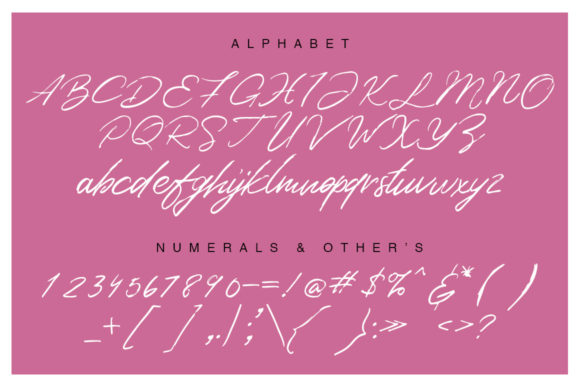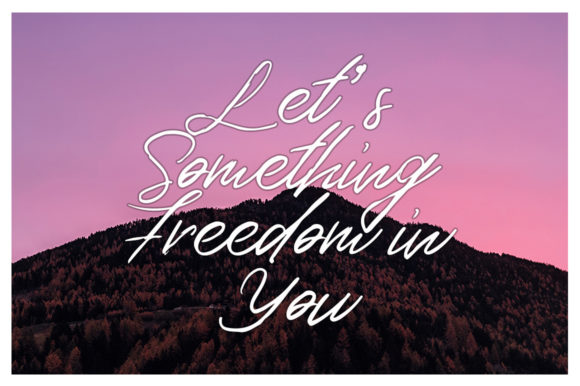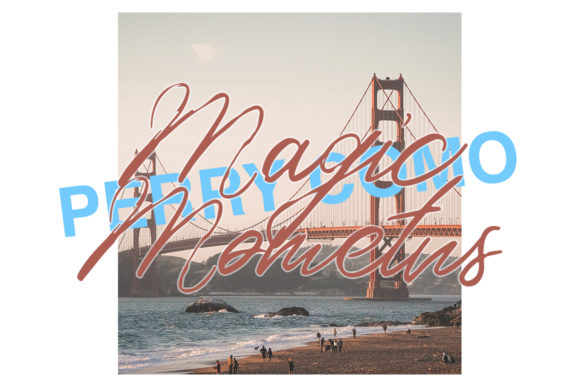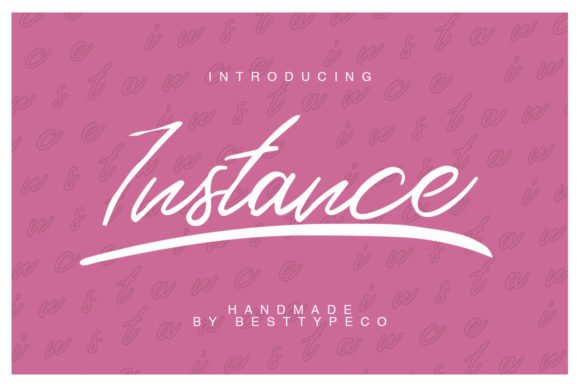
Introduction to Instance Font
Instance is a brushed handwritten font, designed to level up each of your creations.
Fall in love with its incredibly versatile style and use it to create gorgeous wedding invitations, beautiful stationary art, eye-catching social media posts, and much more .
Why Choose Instance Font?
Instance Font offers exceptional quality and versatility, making it a valuable addition to your design toolkit. Whether you’re creating for personal projects or commercial use, Instance Font delivers professional results.